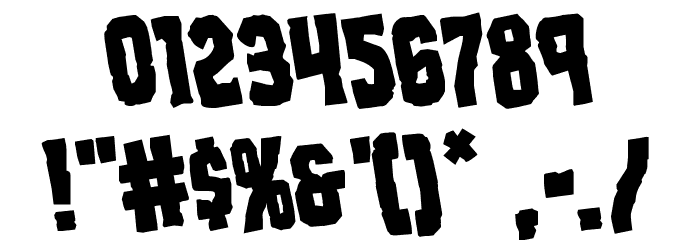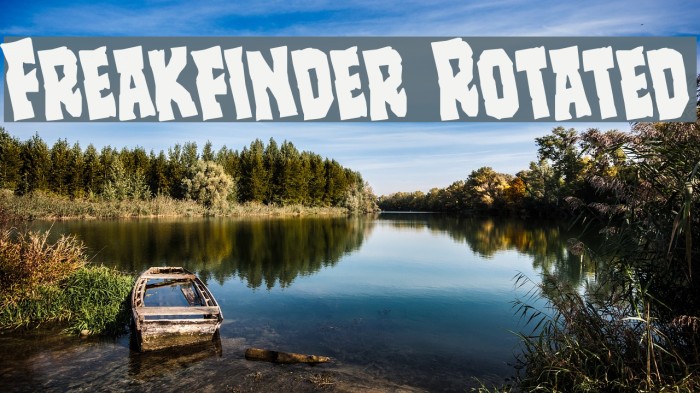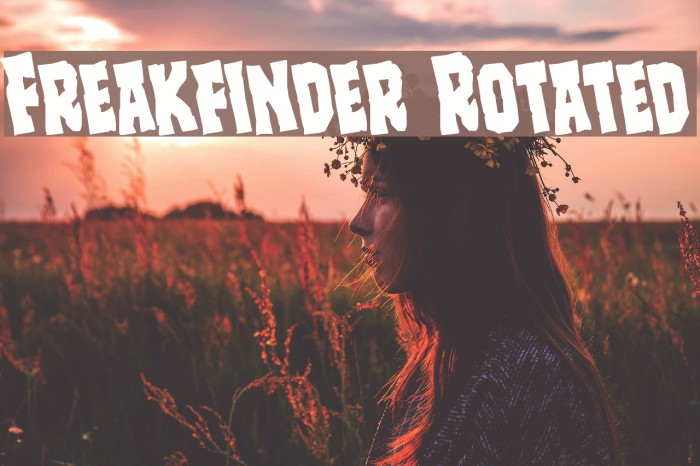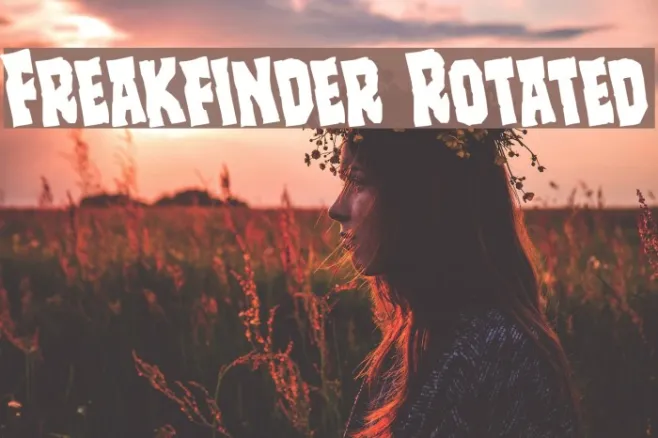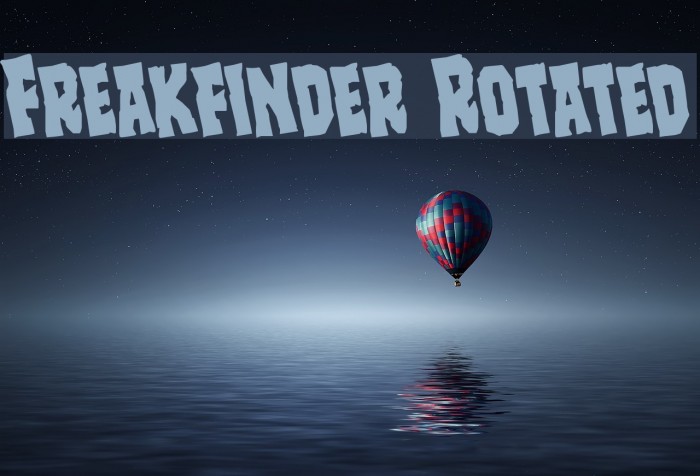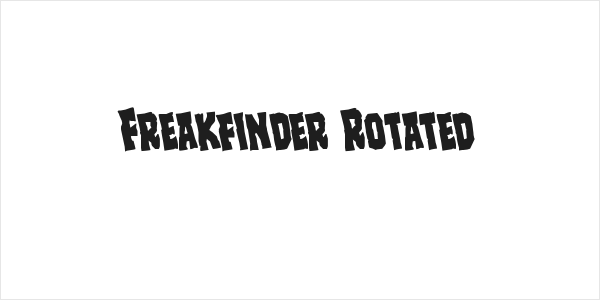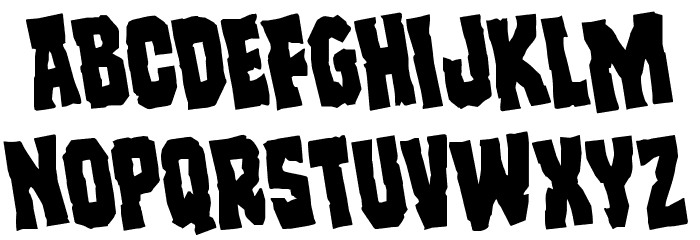
Freakfinder Rotated Font
Freakfinder Rotated Description
This font exhibits a bold and rugged style, characterized by its jagged and irregular edges. The letters are heavily stylized, giving them a rough, almost hand-cut appearance. The uppercase and lowercase letters maintain a consistent weight, contributing to a cohesive look. The numbers and special characters follow the same design principles, ensuring uniformity across all glyphs. This font's unique style makes it stand out, offering a distinctive and edgy aesthetic that can capture attention and convey a sense of boldness and creativity.
| Proposed Projects | Ideal for posters, album covers, video game graphics, or any project requiring a bold, edgy aesthetic. |